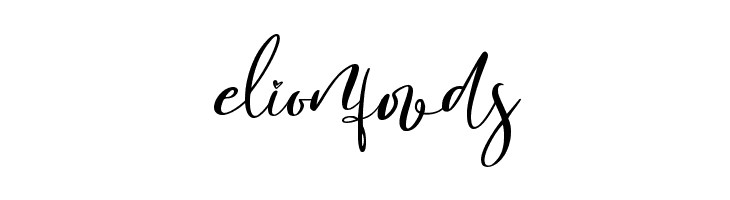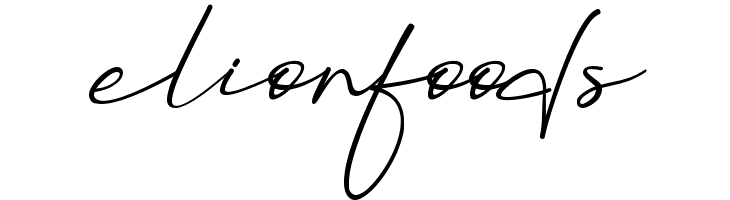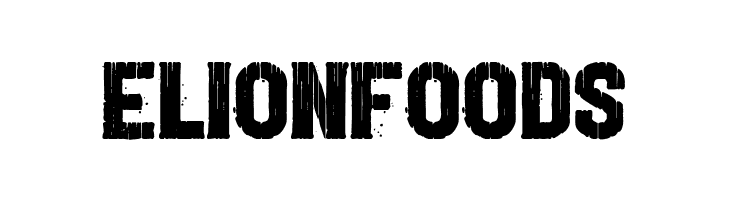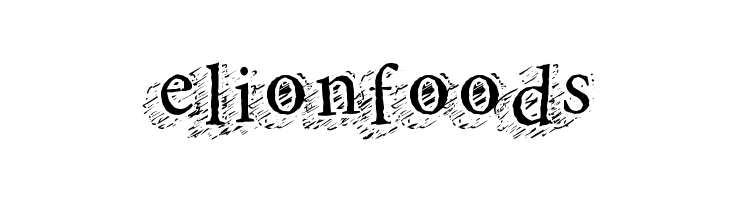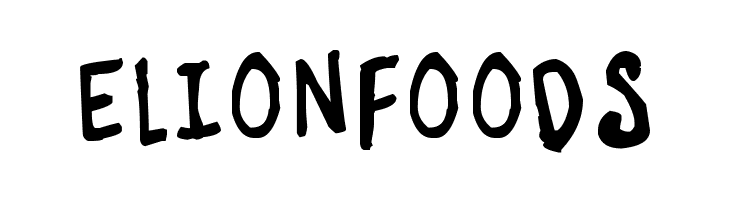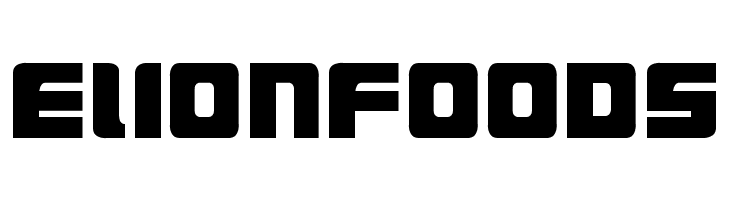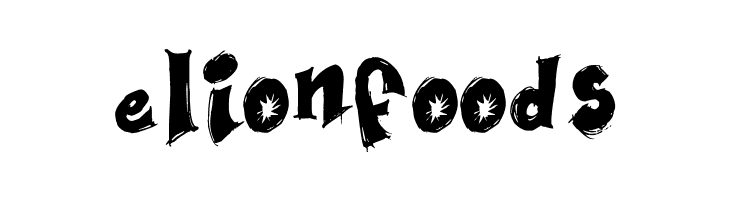
• SURFING and Play
A modern, artistic font with sharp angles and smooth curves.
• SURFING and Play
• SurfsUp
A bold, geometric font with a modern and impactful design.
• Suzanna
A playful, handwritten font with bold, irregular strokes and a casual style.
• Swansong
• Sweater Script
A flowing, cursive font with elegant, connected strokes.
• Sweet Smoothies
A whimsical, thin-stroked font with a playful and modern design.
• SwiftChops
A bold, textured serif font with a hand-drawn, artistic style.
• Swingg
A bold, brush-style font with dynamic, energetic characters.
• Syabian - Personal Use
A flowing, elegant script font with a handwritten, cursive style.